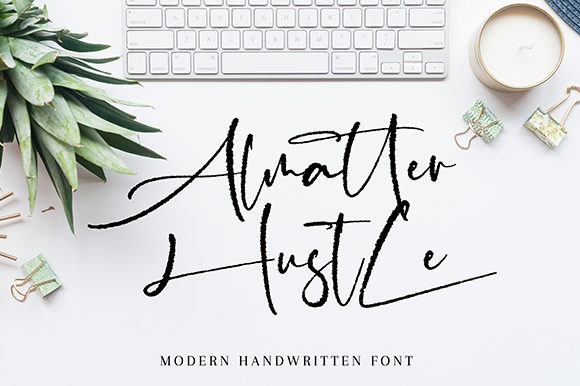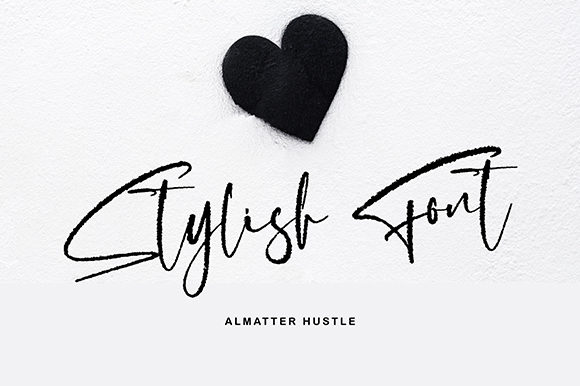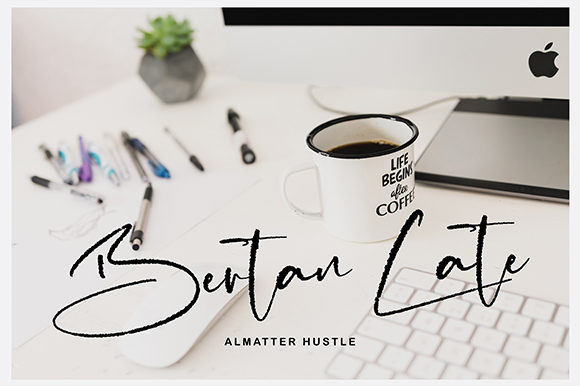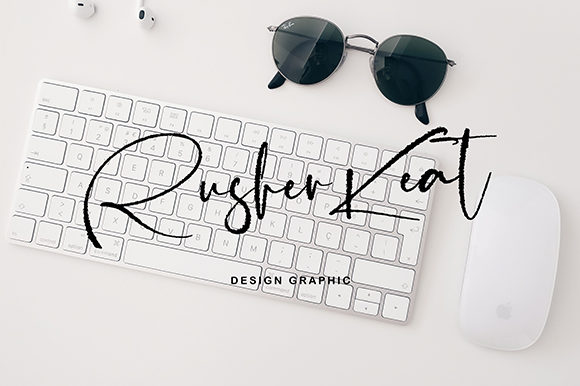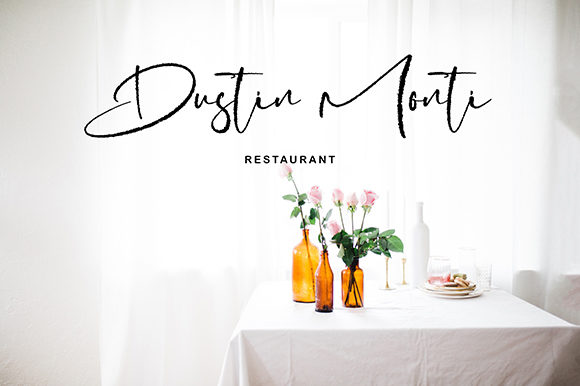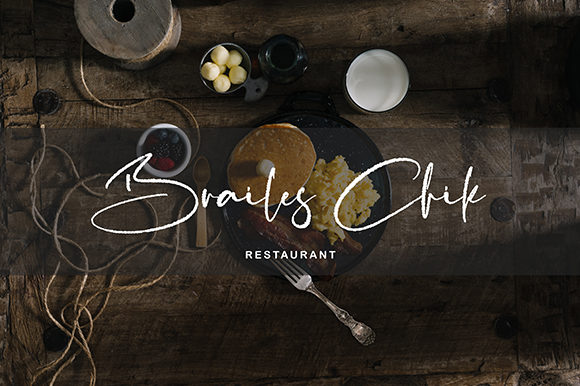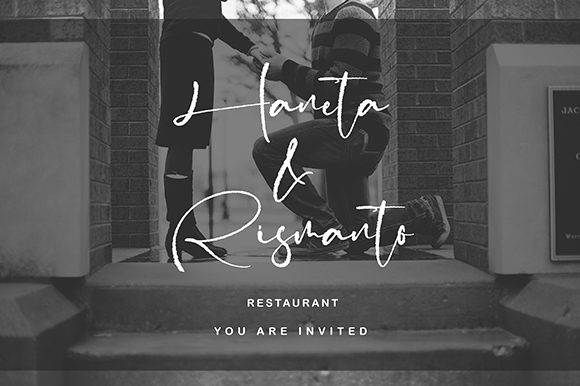
HomeScript FontsAlmatter Hustle Font Script Fonts Almatter Hustle Font FacebookXPinterestWhatsApp Almatter Hustle Font Poster 2 Almatter Hustle Font Poster 3 Almatter Hustle Font Poster 4 Almatter Hustle Font Poster 5 Almatter Hustle Font Poster 6 Almatter Hustle Font Poster 7 About Almatter Hustle Font Almatter Hustle is a handwritten script font with casual style. Get inspired by its contemporary coolness! DOWNLOAD ON CREATIVE FABRICAThis font is sold and delivered by Creative Fabrica. Font Canyon may earn a commission if you buy through this link. People also explored Warrior Script Font Barbie Font Arletta Font Establish Font World of Koka Font Annettasya Font Dracula Boy Font Long Island Love Font Prunellia Monogram Font 249 0 TagsAlmatter Hustle Font Previous articleFlower for Rosalline FontNext articleSimplicity Font LEAVE A REPLY Cancel reply Comment: Please enter your comment! Name:* Please enter your name here Email:* You have entered an incorrect email address! Please enter your email address here Website: Save my name, email, and website in this browser for the next time I comment. Personal Use Free Sushi Stroke Personal Use Free Read more about this font Borg Personal Use Free Read more about this font Vinograd Personal Use Free Read more about this font Metal Lord Personal Use Free Read more about this font BLOG Elegant Wedding Invitation Fonts – Handwritten & Script Fonts Elegant Wedding Invitation Fonts Your wedding day is one of the most important moments of your life, and every detail matters—including your invitation design. Our... Modern Sans-Serif Fonts That Brands Love in 2025 5 Fonts That Will Dominate Design Trends in 2026 Free Fonts Risk: Why Free Fonts Can Be Dangerous for Designers